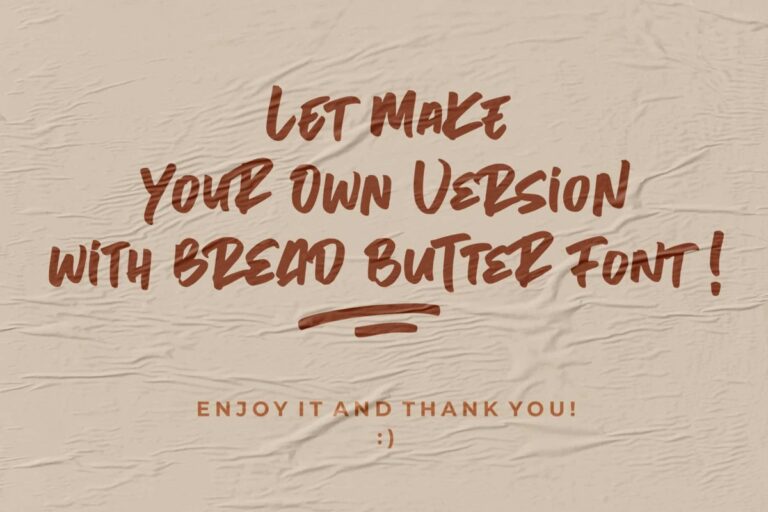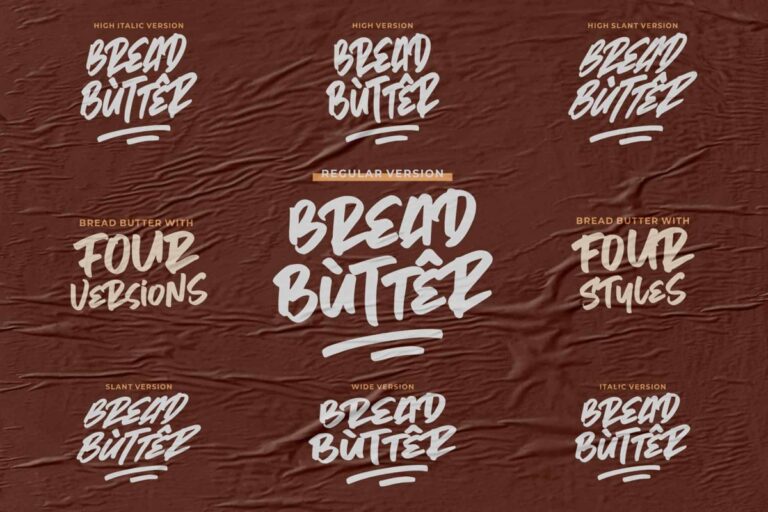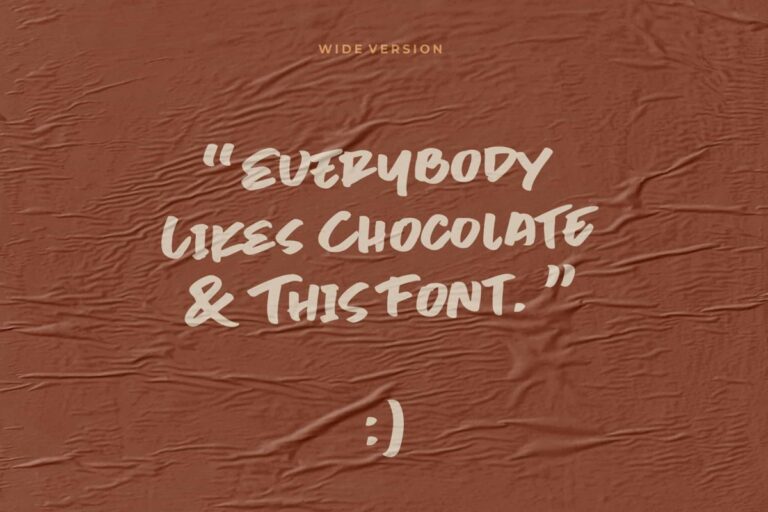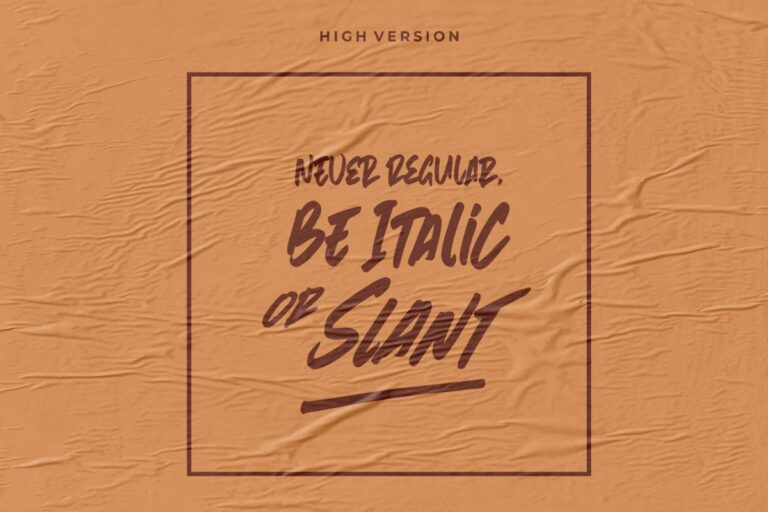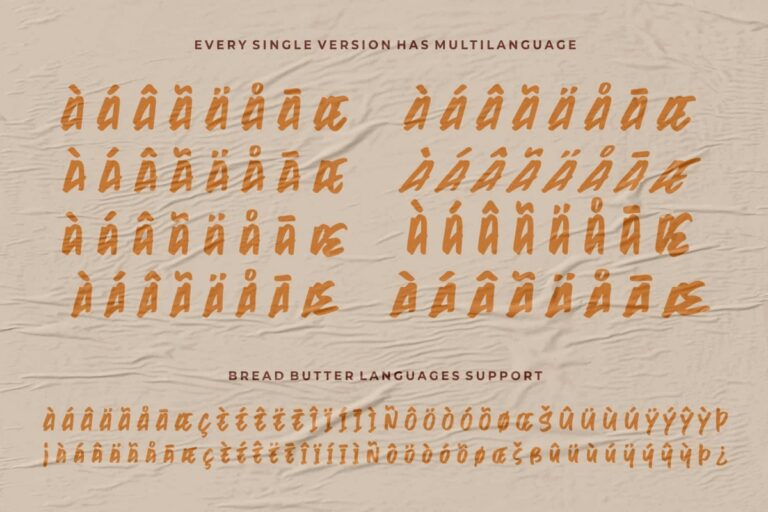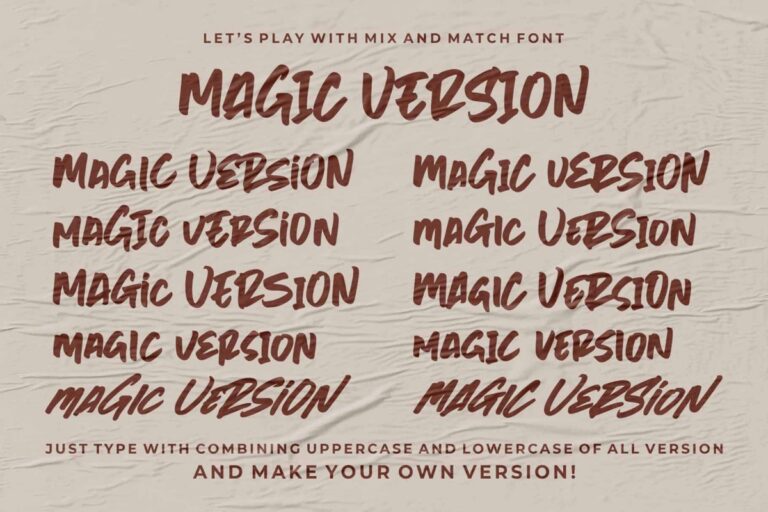
- Bread Butter
We proudly present an Experiment Font is called Bread Butter. This font made with the perfect combining of each character. You can type by Mix & Match to get a unique combining. It looks original and can be used for all your project needs. Each glyph has its own uniqueness and when meeting with others will provide dynamic and pleasing proximity. This font can be used at any time and any project.
Let Make Your Own Versions with Bread Butter Font for Your Projects Design!